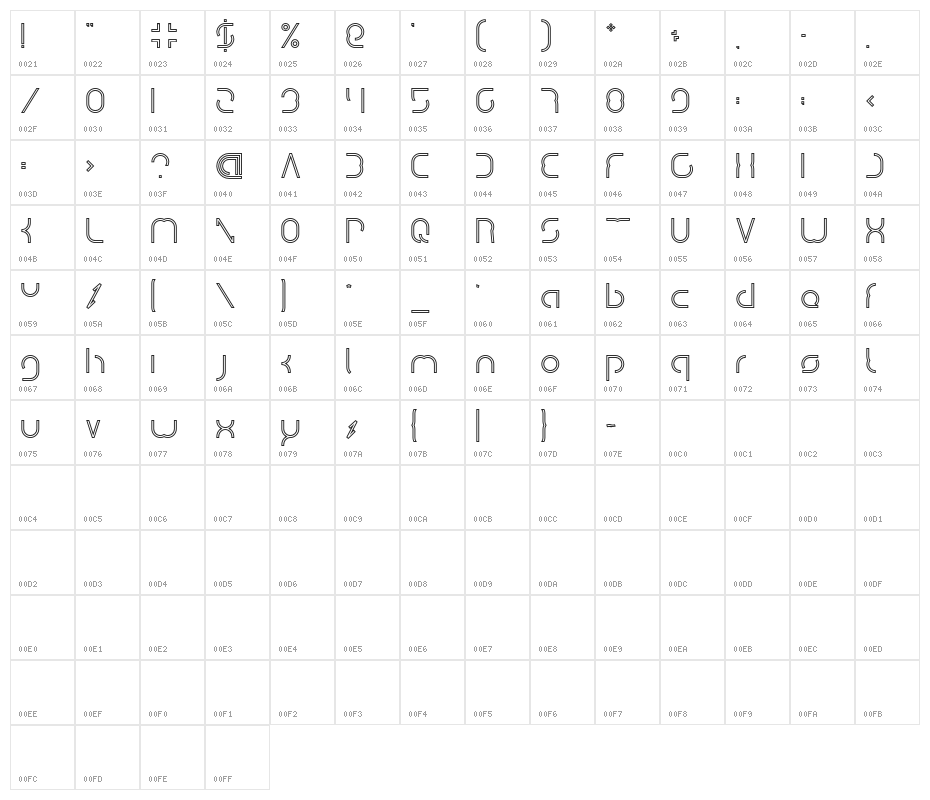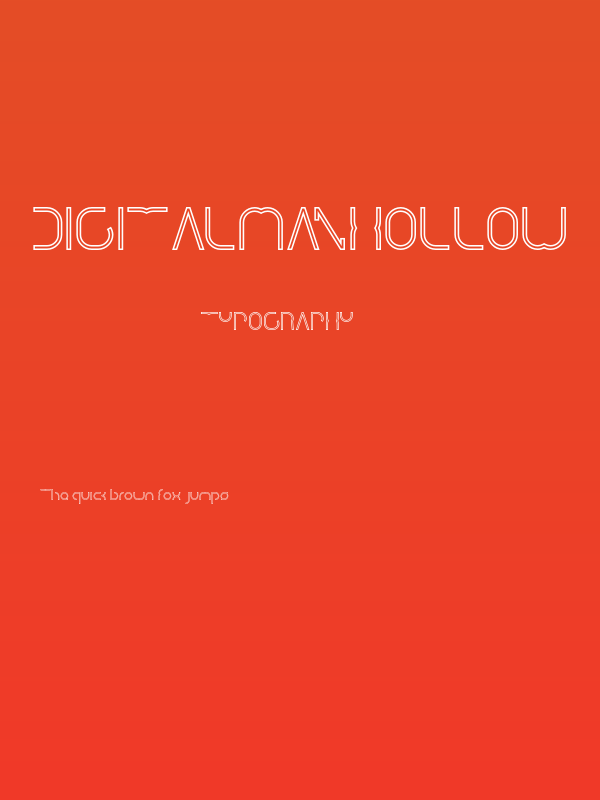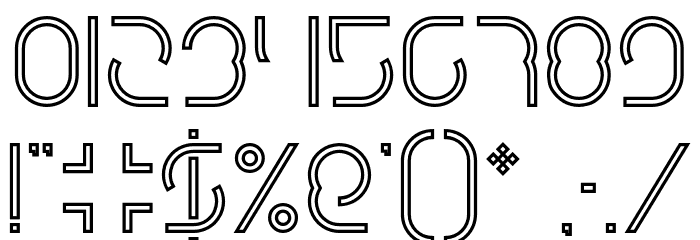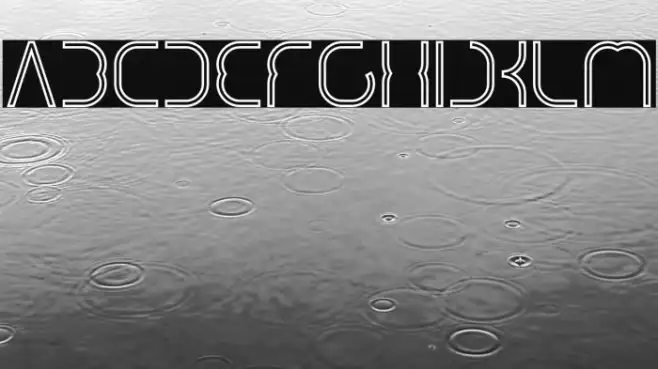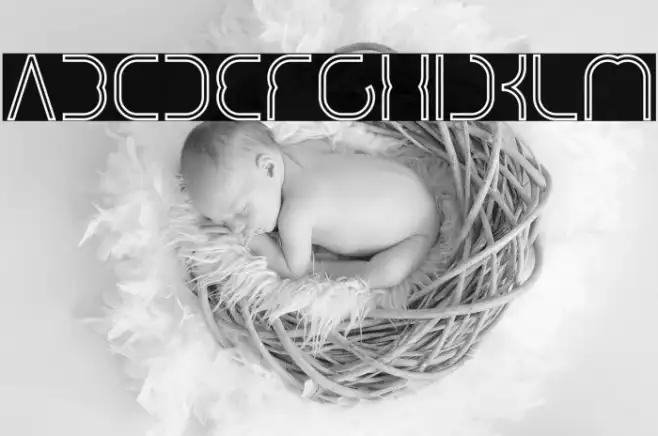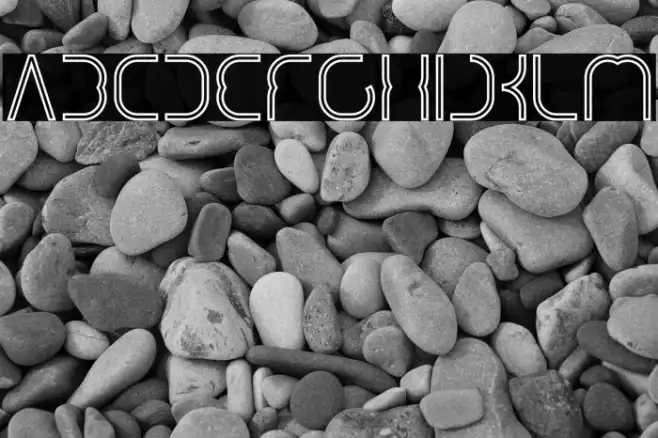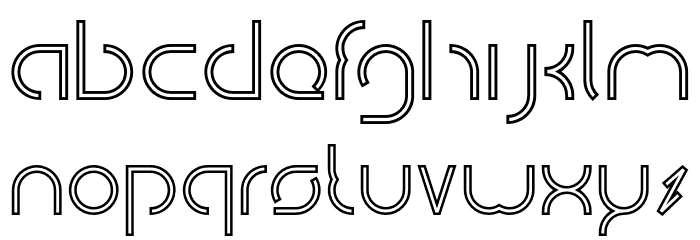
DigitalManHollow Font
DigitalManHollow Description
This font features a futuristic and geometric design, characterized by its hollow, outlined letterforms. The characters are constructed with clean, continuous lines that create a sense of modernity and innovation. The uppercase and lowercase letters maintain a consistent style, with angular and rounded elements that blend seamlessly. The numbers and special characters follow the same design principles, ensuring uniformity across the entire set. This font's unique style makes it stand out, offering a visually striking appearance suitable for various creative applications.
| Proposed Projects | Ideal for sci-fi themed projects, technology branding, digital interfaces, and modern art designs. |